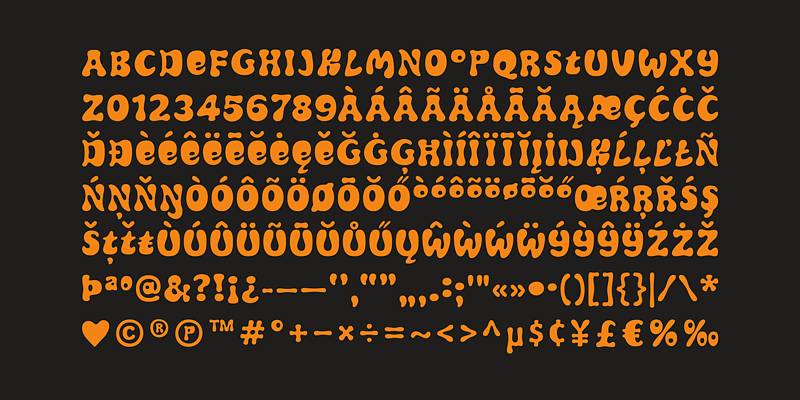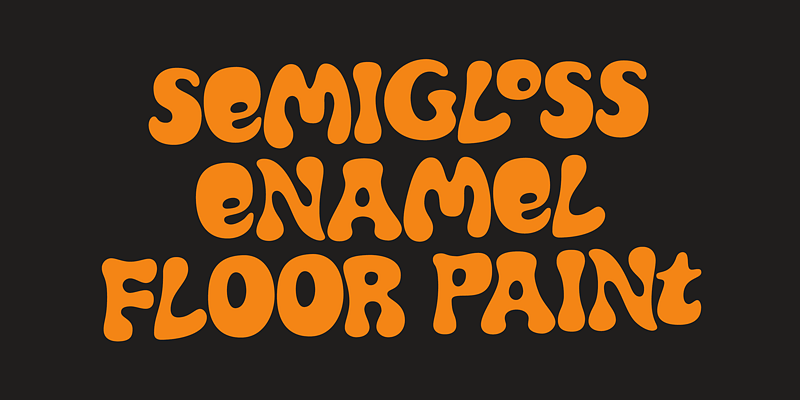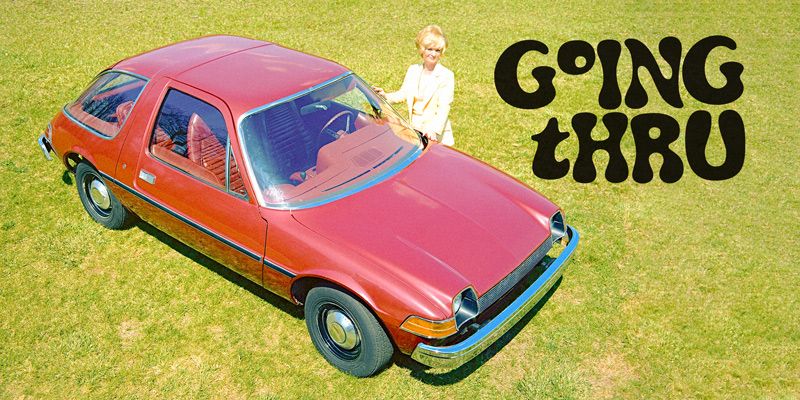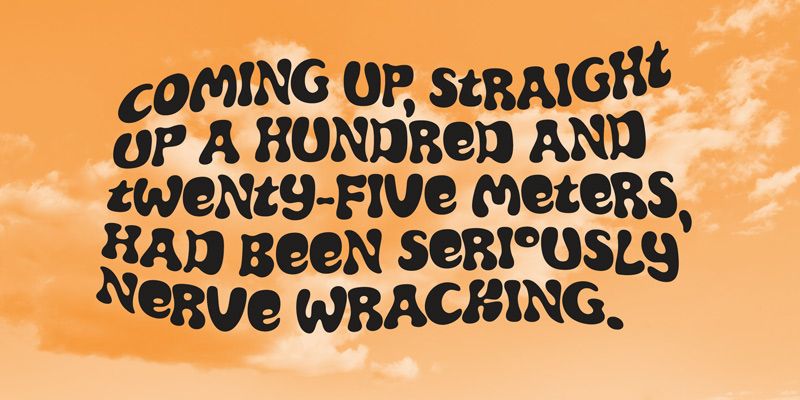
Synthemesc turns a word into a soft, strange object. Swollen strokes, pinched joins, and uneven spaces give the letters an organic, slightly psychedelic movement that can sit beside liquid textures, surreal imagery, or intense color. It works for experimental music posters, flavor-led packaging, club graphics, and playful titles that should feel more like part of the artwork than a neutral label. A short name lets the changing contours make a distinctive silhouette. In a composition filled with glossy forms or exaggerated fruit, the letters can join the imagery instead of sitting politely above it.